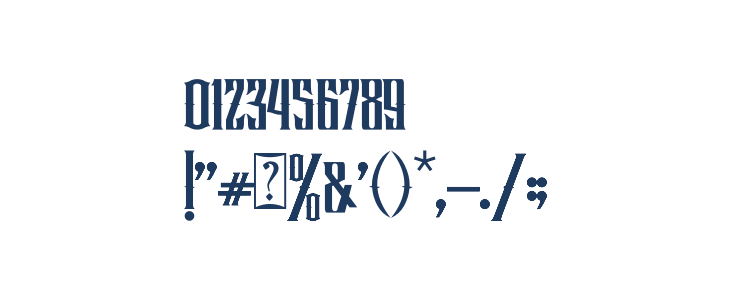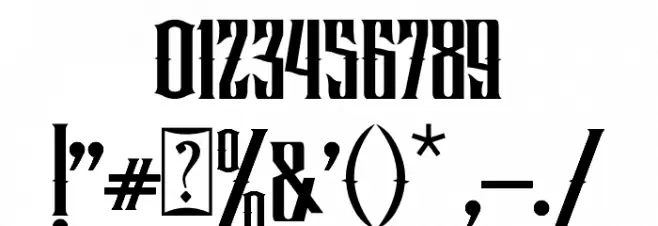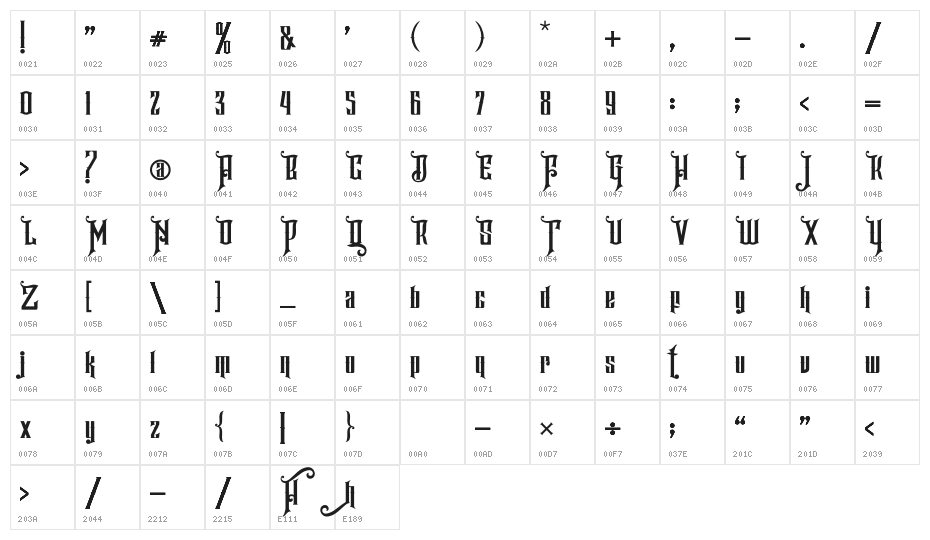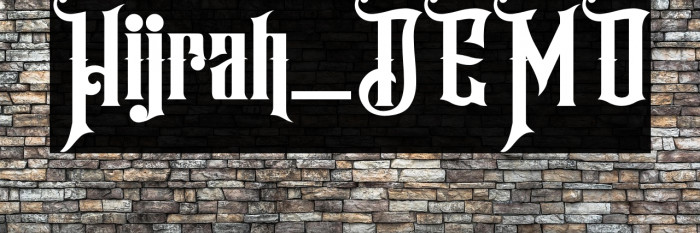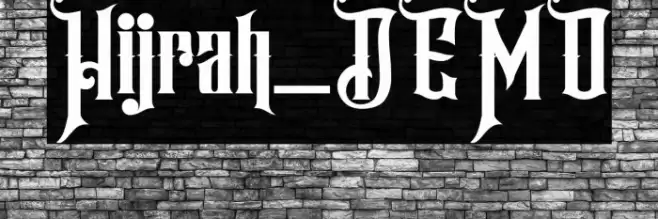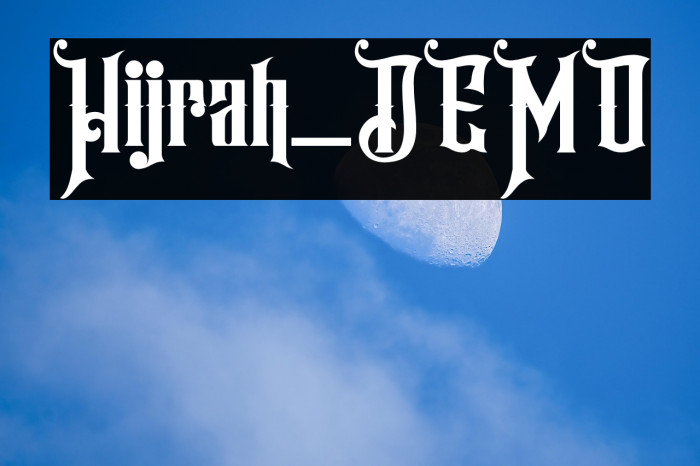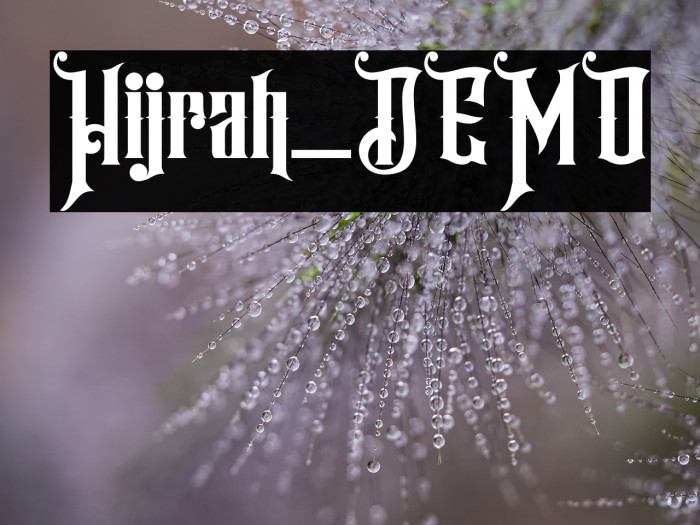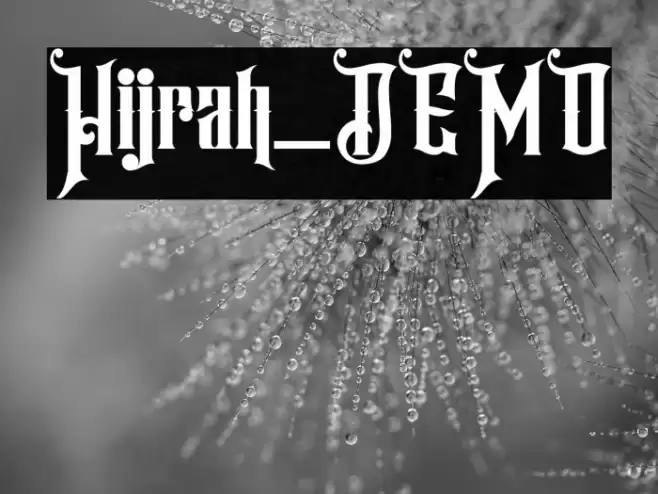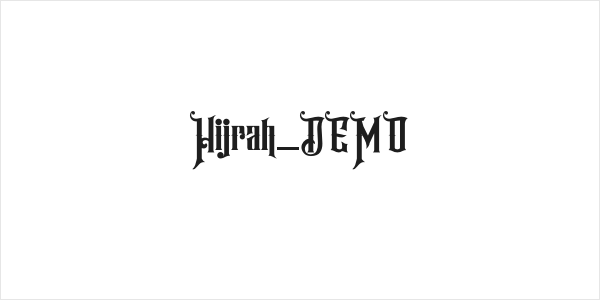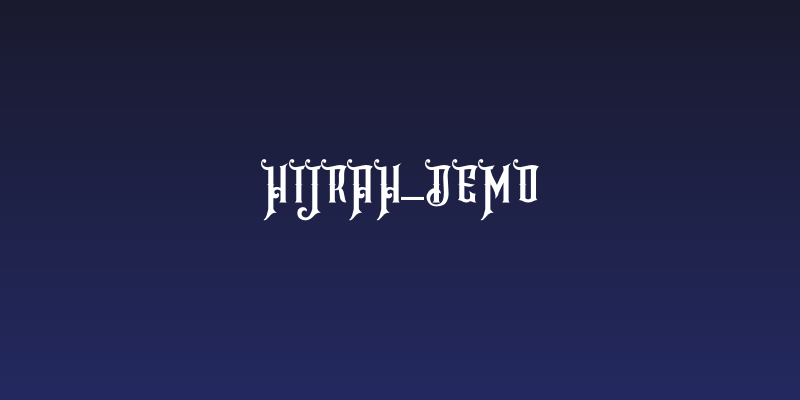
Hijrah_DEMO Font
Hijrah_DEMO Description
This font features a bold and dramatic style with sharp, angular lines and intricate detailing reminiscent of Gothic or medieval script. The uppercase letters are particularly ornate, with extended serifs and decorative elements that give them a striking appearance. The lowercase letters maintain a consistent style, with a slightly condensed form that complements the uppercase. Numbers and special characters are designed with the same attention to detail, ensuring a cohesive look across all glyphs. This font's unique style makes it suitable for projects that require a historical or fantasy theme.
| Proposed Projects | Ideal for fantasy book covers, historical event posters, themed invitations, or any project requiring a dramatic and medieval aesthetic. |